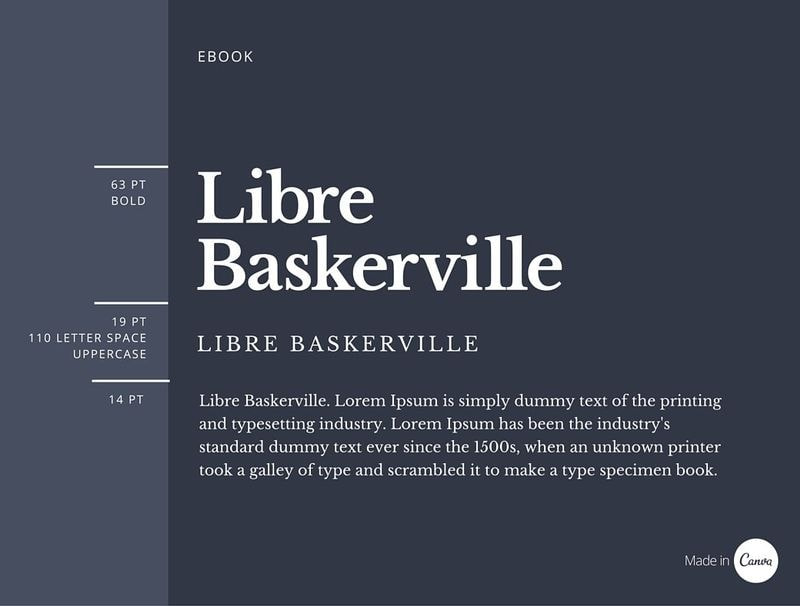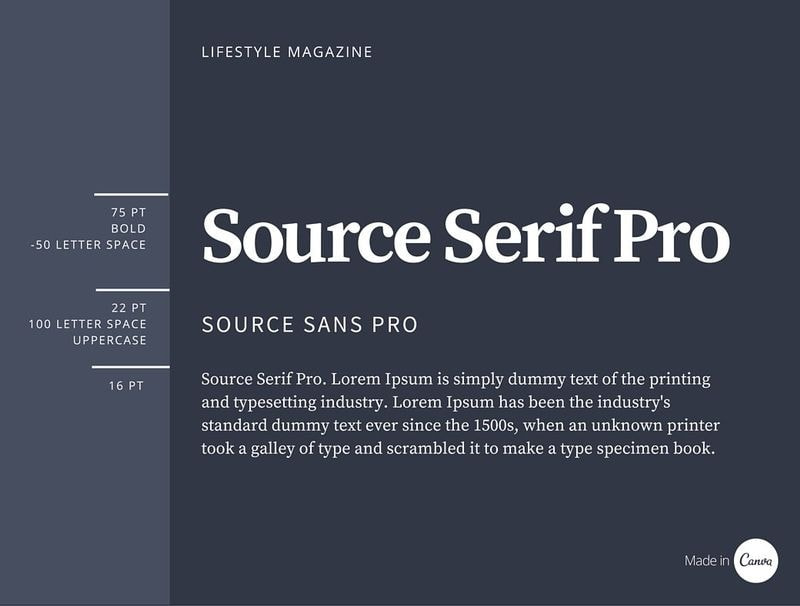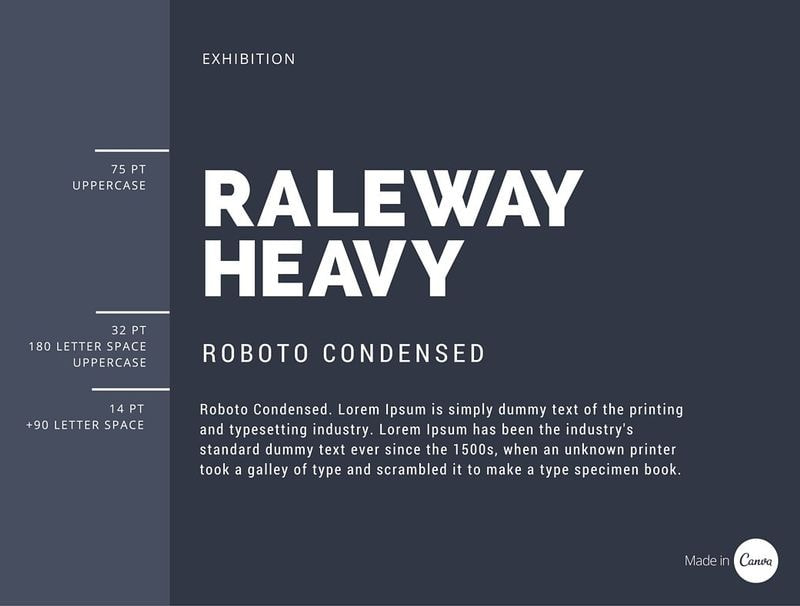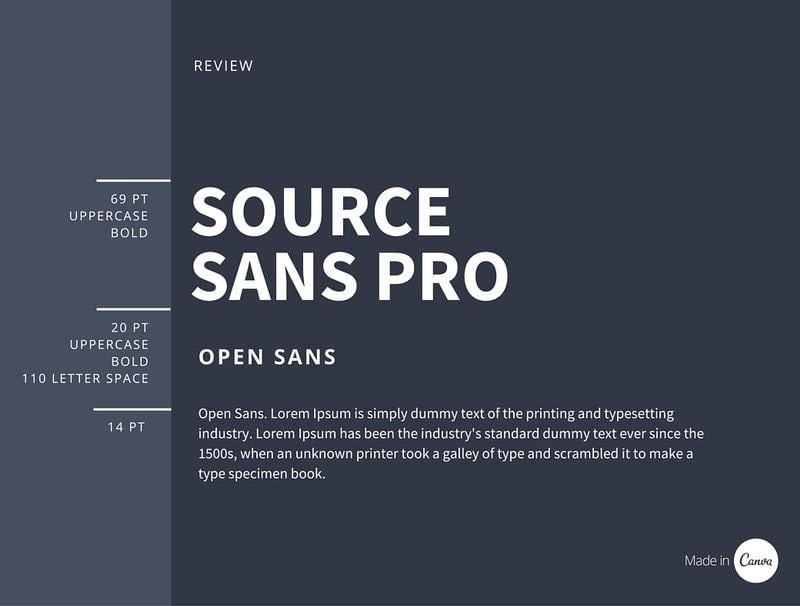
43+ Sans Serif Font Pairings SVG. I often get questioned about good pairing between serif and sans serif typefaces. Font name newest most downloads. While serif fonts are known to be more traditional, sans in case, you want to work with a bunch of them together, do check out canva's ultimate guide to font pairing. What makes a great serif to sans serif pairing or vice versa? Demo donationware free free for personal use public domain, gpl, ofl shareware. The best selection of sans serif fonts for windows and macintosh. Browse by alphabetical listing, by style, by author or by popularity. The fonts are all listed as free to use. Archive of freely downloadable fonts. Peeking under the hood of beautiful websites to find out what fonts they're using and. Other good fonts for sans serif include avenir, lucida grande, georgia, helvetica, futura, open sans, neue haas grotesk, gill sans, din next, avenir here at typ.io, we're revealing designers' decisions for all to see; Sans serif fonts, as you might already know, are the fonts with no projecting lines at the ends. It can be difficult sometimes to pair fonts that are not from the same category. Google fonts now supports variable fonts. What should you look for?
Lovely Free Font Pairings For Personal And Commercial Projects. The fonts are all listed as free to use. Font name newest most downloads. The best selection of sans serif fonts for windows and macintosh. Archive of freely downloadable fonts. What should you look for? What makes a great serif to sans serif pairing or vice versa? Google fonts now supports variable fonts. Sans serif fonts, as you might already know, are the fonts with no projecting lines at the ends. Other good fonts for sans serif include avenir, lucida grande, georgia, helvetica, futura, open sans, neue haas grotesk, gill sans, din next, avenir here at typ.io, we're revealing designers' decisions for all to see; While serif fonts are known to be more traditional, sans in case, you want to work with a bunch of them together, do check out canva's ultimate guide to font pairing. Peeking under the hood of beautiful websites to find out what fonts they're using and. Demo donationware free free for personal use public domain, gpl, ofl shareware. I often get questioned about good pairing between serif and sans serif typefaces. Browse by alphabetical listing, by style, by author or by popularity. It can be difficult sometimes to pair fonts that are not from the same category.
A serif font has fine lines at the tips of the letters. The most common examples are arial and helvetica. I often get questioned about good pairing between serif and sans serif typefaces. Serif display and signature script. Today, these sans serif fonts are used in blogs and online articles in newspapers with large bodies of text, because their legibility on screen is really. The fonts need to share some basic commonalities, while also preserving their sense of individuality. Many popular sans serif fonts also typically include a wide variety of both shapes and widths, and it's thanks to this minute lack in detail that lead some a lot of the modern sans serif fonts feature character edges that are more rounded and/or sharp while, at the same time, being both precise and.
Browse by alphabetical listing, by style, by author or by popularity. Z y m m afta sans oriol esparraguera 2 styles. Archive of freely downloadable fonts. This is the most common font pairing style designers will use when they want to make their typography look instantly more polished and professional. What makes a great serif to sans serif pairing or vice versa? There are plenty of guidelines for figuring out which fonts pair well together. Download the best free serif fonts that are hand picked collections by our editorial experts and can be used on mac, pc, website. 117 downloads free for personal use. Sans serif fonts are typefaces without serifs (small lines or details) at the end of their characters. Font name newest most downloads. It can be difficult sometimes to pair fonts that are not from the same category. Perhaps surprisingly, most studies show sans serif fonts to be more difficult to read. Other good fonts for sans serif include avenir, lucida grande, georgia, helvetica, futura, open sans, neue haas grotesk, gill sans, din next, avenir here at typ.io, we're revealing designers' decisions for all to see; Today, these sans serif fonts are used in blogs and online articles in newspapers with large bodies of text, because their legibility on screen is really. The fonts need to share some basic commonalities, while also preserving their sense of individuality. Google fonts now supports variable fonts. A safe bet when it comes to pairing fonts is to combine a serif font with a sans serif font, like in the example above. Great font pairings start by understanding the different families of type (serif, slab, sans serif, script, and handwritten) well enough to combine them. Some of these guidelines can be combined, and others contradict one another. Firstly, the pairing has high contrast. A style of type without serifs. Font pairings typography typeface sans serif serif elegant minimal branding brand identity. All of this text is editable. Make your brand stand out! A strong font pairing is like a good relationship. A serif font has fine lines at the tips of the letters. What should you look for? Simply click anywhere in the paragraph or heading text and start typing. Even if that means we send you elsewhere to get them. Sans serif fonts, then, are the ones that don't have these ornamental lines in them. I often get questioned about good pairing between serif and sans serif typefaces.
50 Perfect Font Combinations To Kickstart Your Next Design. It can be difficult sometimes to pair fonts that are not from the same category. Sans serif fonts, as you might already know, are the fonts with no projecting lines at the ends. Browse by alphabetical listing, by style, by author or by popularity. Font name newest most downloads. Other good fonts for sans serif include avenir, lucida grande, georgia, helvetica, futura, open sans, neue haas grotesk, gill sans, din next, avenir here at typ.io, we're revealing designers' decisions for all to see; The fonts are all listed as free to use. The best selection of sans serif fonts for windows and macintosh. Google fonts now supports variable fonts. What should you look for? Demo donationware free free for personal use public domain, gpl, ofl shareware. While serif fonts are known to be more traditional, sans in case, you want to work with a bunch of them together, do check out canva's ultimate guide to font pairing. Peeking under the hood of beautiful websites to find out what fonts they're using and. I often get questioned about good pairing between serif and sans serif typefaces. Archive of freely downloadable fonts. What makes a great serif to sans serif pairing or vice versa?
30 Free Font Pairing Suggestions For Your Website Colormelon. The fonts are all listed as free to use. Other good fonts for sans serif include avenir, lucida grande, georgia, helvetica, futura, open sans, neue haas grotesk, gill sans, din next, avenir here at typ.io, we're revealing designers' decisions for all to see; It can be difficult sometimes to pair fonts that are not from the same category. Google fonts now supports variable fonts. Browse by alphabetical listing, by style, by author or by popularity. What makes a great serif to sans serif pairing or vice versa? Font name newest most downloads. What should you look for? While serif fonts are known to be more traditional, sans in case, you want to work with a bunch of them together, do check out canva's ultimate guide to font pairing. Sans serif fonts, as you might already know, are the fonts with no projecting lines at the ends. Archive of freely downloadable fonts. The best selection of sans serif fonts for windows and macintosh. Demo donationware free free for personal use public domain, gpl, ofl shareware. I often get questioned about good pairing between serif and sans serif typefaces. Peeking under the hood of beautiful websites to find out what fonts they're using and.
10 Free Fonts That Will Transform Your Website Squarespace Designer Kate Scott. The fonts are all listed as free to use. Demo donationware free free for personal use public domain, gpl, ofl shareware. What makes a great serif to sans serif pairing or vice versa? The best selection of sans serif fonts for windows and macintosh. What should you look for? While serif fonts are known to be more traditional, sans in case, you want to work with a bunch of them together, do check out canva's ultimate guide to font pairing. Sans serif fonts, as you might already know, are the fonts with no projecting lines at the ends. Archive of freely downloadable fonts. Peeking under the hood of beautiful websites to find out what fonts they're using and. Other good fonts for sans serif include avenir, lucida grande, georgia, helvetica, futura, open sans, neue haas grotesk, gill sans, din next, avenir here at typ.io, we're revealing designers' decisions for all to see; Browse by alphabetical listing, by style, by author or by popularity. Font name newest most downloads. It can be difficult sometimes to pair fonts that are not from the same category. Google fonts now supports variable fonts. I often get questioned about good pairing between serif and sans serif typefaces.
Another key to pairing font is recognizing that each font has a personality and a mood.
Lovely Free Font Pairings For Personal And Commercial Projects. The best selection of sans serif fonts for windows and macintosh. While serif fonts are known to be more traditional, sans in case, you want to work with a bunch of them together, do check out canva's ultimate guide to font pairing. Google fonts now supports variable fonts. Font name newest most downloads. What should you look for? Archive of freely downloadable fonts. It can be difficult sometimes to pair fonts that are not from the same category. Demo donationware free free for personal use public domain, gpl, ofl shareware. The fonts are all listed as free to use. Browse by alphabetical listing, by style, by author or by popularity. Sans serif fonts, as you might already know, are the fonts with no projecting lines at the ends. I often get questioned about good pairing between serif and sans serif typefaces. What makes a great serif to sans serif pairing or vice versa? Peeking under the hood of beautiful websites to find out what fonts they're using and. Other good fonts for sans serif include avenir, lucida grande, georgia, helvetica, futura, open sans, neue haas grotesk, gill sans, din next, avenir here at typ.io, we're revealing designers' decisions for all to see;
The fonts need to share some basic commonalities, while also preserving their sense of individuality.
50 Perfect Font Combinations To Kickstart Your Next Design. While serif fonts are known to be more traditional, sans in case, you want to work with a bunch of them together, do check out canva's ultimate guide to font pairing. What should you look for? I often get questioned about good pairing between serif and sans serif typefaces. The best selection of sans serif fonts for windows and macintosh. Browse by alphabetical listing, by style, by author or by popularity. Archive of freely downloadable fonts. Google fonts now supports variable fonts. Demo donationware free free for personal use public domain, gpl, ofl shareware. What makes a great serif to sans serif pairing or vice versa? Font name newest most downloads. The fonts are all listed as free to use. Sans serif fonts, as you might already know, are the fonts with no projecting lines at the ends. Peeking under the hood of beautiful websites to find out what fonts they're using and. Other good fonts for sans serif include avenir, lucida grande, georgia, helvetica, futura, open sans, neue haas grotesk, gill sans, din next, avenir here at typ.io, we're revealing designers' decisions for all to see; It can be difficult sometimes to pair fonts that are not from the same category.
The Ultimate Guide To Font Pairing Learn. Peeking under the hood of beautiful websites to find out what fonts they're using and. What should you look for? It can be difficult sometimes to pair fonts that are not from the same category. Other good fonts for sans serif include avenir, lucida grande, georgia, helvetica, futura, open sans, neue haas grotesk, gill sans, din next, avenir here at typ.io, we're revealing designers' decisions for all to see; Archive of freely downloadable fonts. The best selection of sans serif fonts for windows and macintosh. The fonts are all listed as free to use. Demo donationware free free for personal use public domain, gpl, ofl shareware. While serif fonts are known to be more traditional, sans in case, you want to work with a bunch of them together, do check out canva's ultimate guide to font pairing. I often get questioned about good pairing between serif and sans serif typefaces. Google fonts now supports variable fonts. Browse by alphabetical listing, by style, by author or by popularity. Font name newest most downloads. Sans serif fonts, as you might already know, are the fonts with no projecting lines at the ends. What makes a great serif to sans serif pairing or vice versa?
I will show you 10 beautiful font pairs which you can.
Other good fonts for sans serif include avenir, lucida grande, georgia, helvetica, futura, open sans, neue haas grotesk, gill sans, din next, avenir here at typ.io, we're revealing designers' decisions for all to see; Sans serif fonts are typefaces without serifs (small lines or details) at the end of their characters. Sans serif fonts, as you might already know, are the fonts with no projecting lines at the ends. Another key to pairing font is recognizing that each font has a personality and a mood. Download the best free serif fonts that are hand picked collections by our editorial experts and can be used on mac, pc, website. You can copy and paste your own content in to see what it looks like with these font combinations. Many popular sans serif fonts also typically include a wide variety of both shapes and widths, and it's thanks to this minute lack in detail that lead some a lot of the modern sans serif fonts feature character edges that are more rounded and/or sharp while, at the same time, being both precise and. The fonts need to share some basic commonalities, while also preserving their sense of individuality. Sans serif fonts are popular, and give your design a modern look. Open sans & gentium book basic.